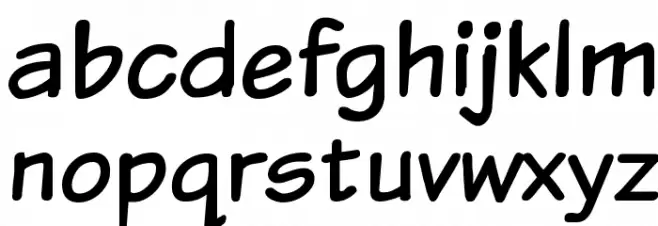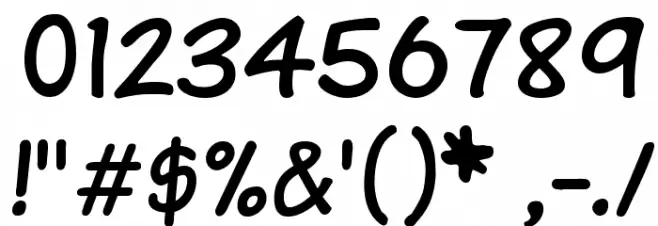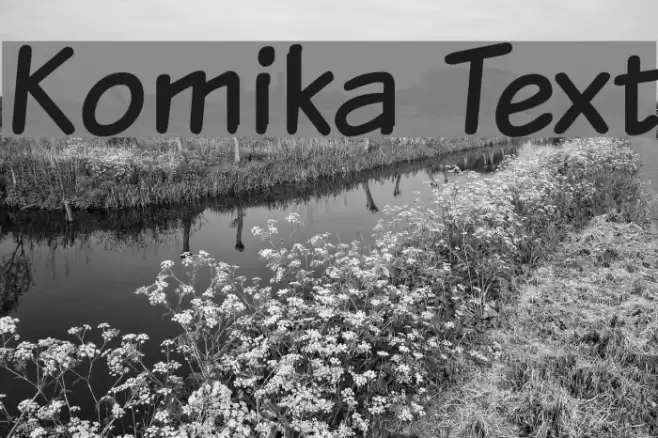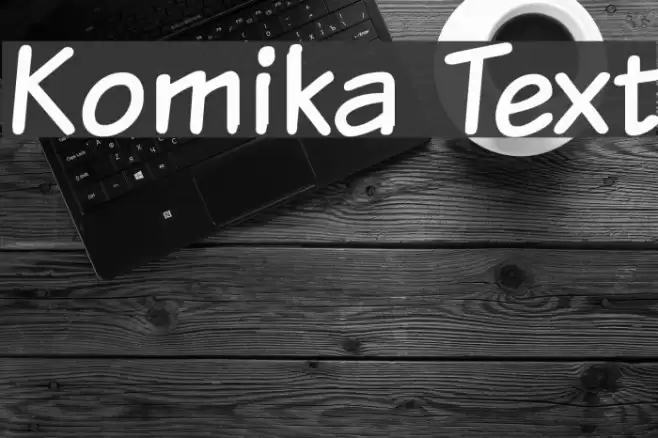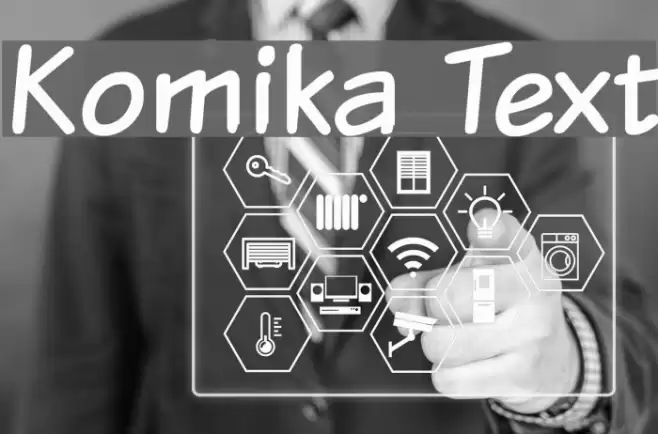
Komika Text
This playful and bold font features rounded, cartoon-like characters that evoke a sense of fun and creativity. The letters are slightly slanted, giving a dynamic and informal appearance. The strokes are consistent in thickness, providing a uniform look across all characters. The font includes a full set of uppercase and lowercase letters, numbers, and a variety of special characters, making it versatile for different uses. Its casual style is reminiscent of comic book lettering, making it ideal for projects that require a lighthearted and approachable feel.
A playful, bold font with rounded, cartoon-like characters and a dynamic, informal style.
- Proposed Projects: Ideal for comic books, children's books, playful branding, and informal event invitations.
- Overall Style: Playful, Informal
- Use Case: Headlines, Logos, Posters